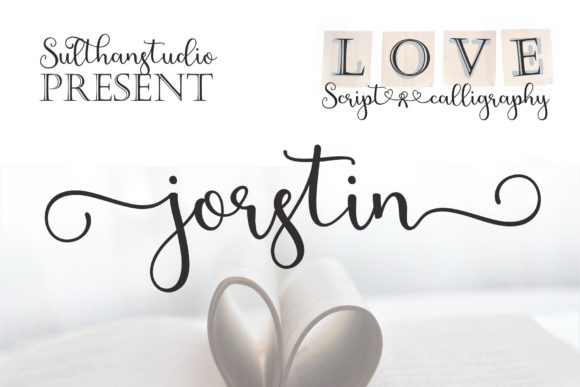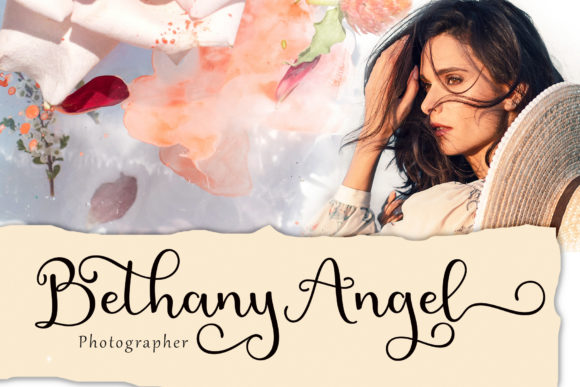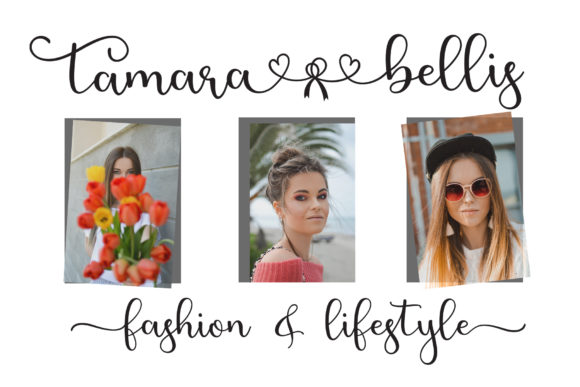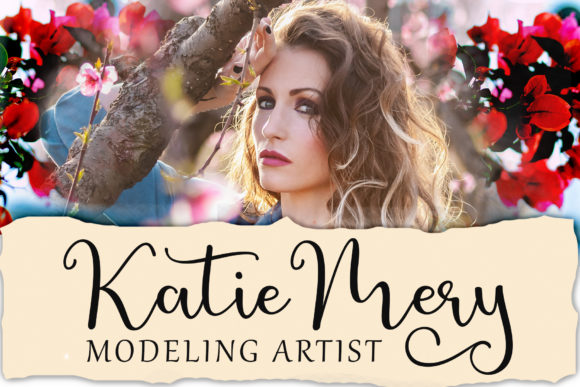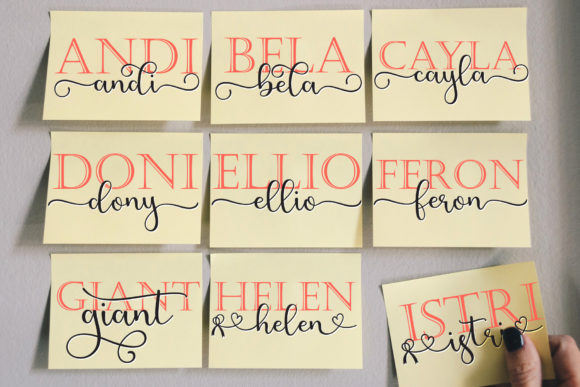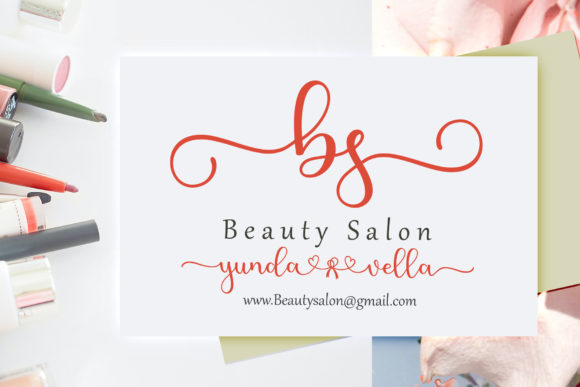
About Jorstin Font
Jorstin is a new, fresh, funny, interesting, cute calligraphy font with a heart that can be connected. Great for greeting cards, branding materials, business cards, quotes, posters, and more!